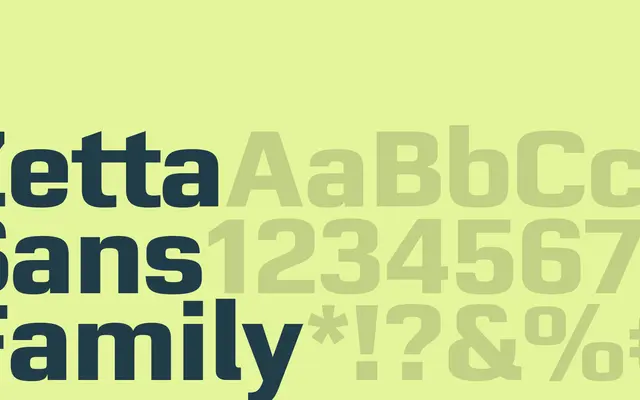
Zetta Sans
A sans-serif from Copenhagen foundry Playtype, with little published detail available from the product page.
The page offers minimal copy, presenting only a short narrative fragment rather than technical or design information about the typeface. Based on Playtype's broader catalogue, Zetta Sans sits likely within their contemporary sans-serif range suited to text and branding applications. Further detail on weights, styles and language support is not available from the scraped content.
The name and foundry context suggest a contemporary sans-serif; the sparse page copy does not contradict a humanist sans classification typical of Playtype's catalogue.